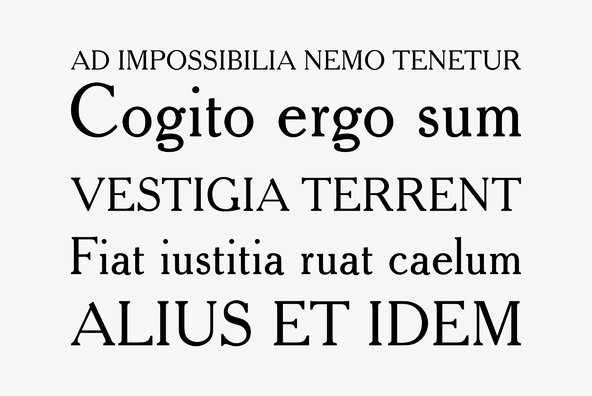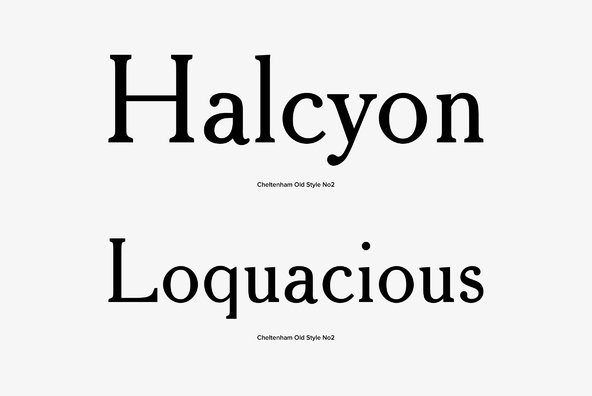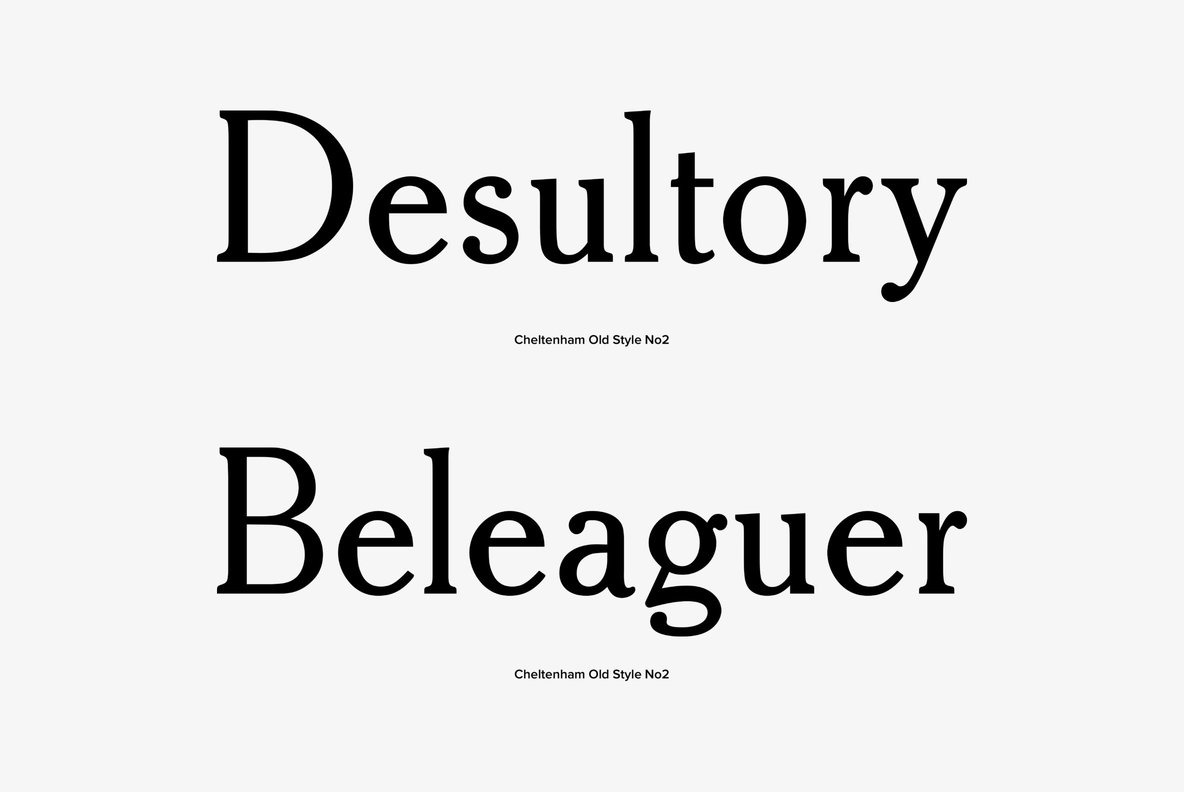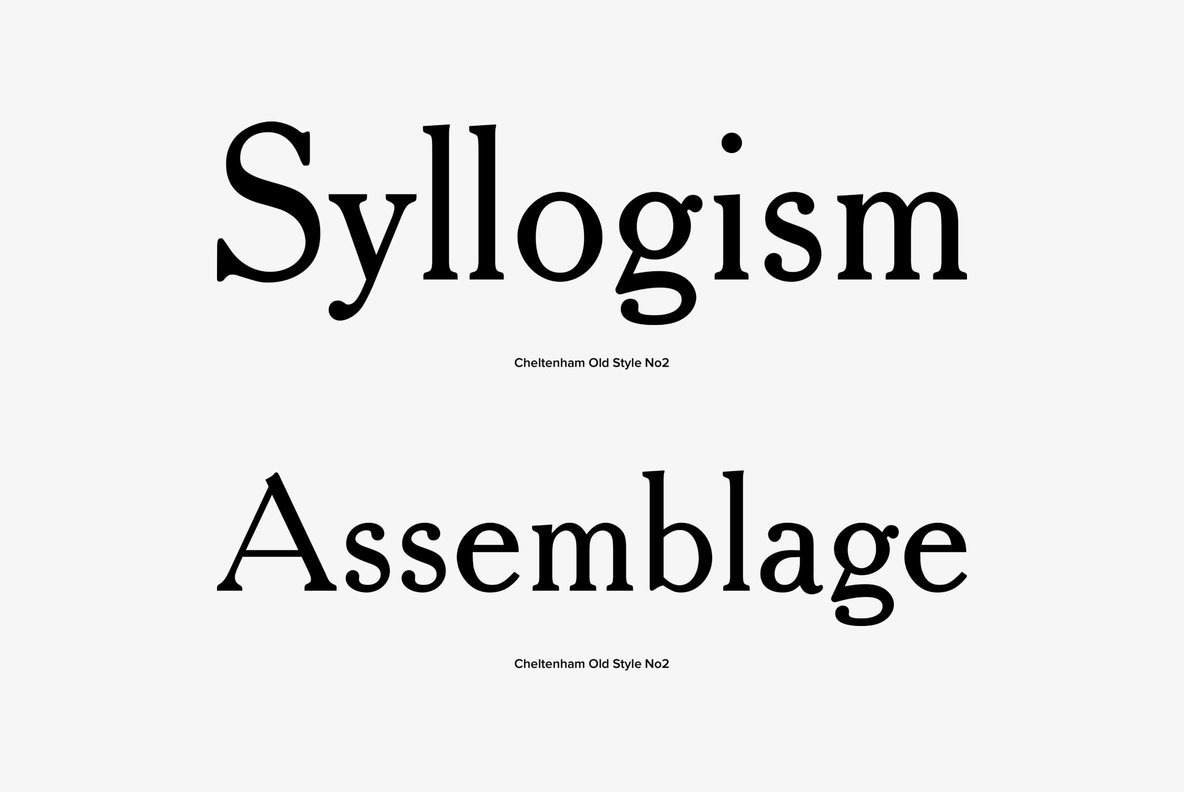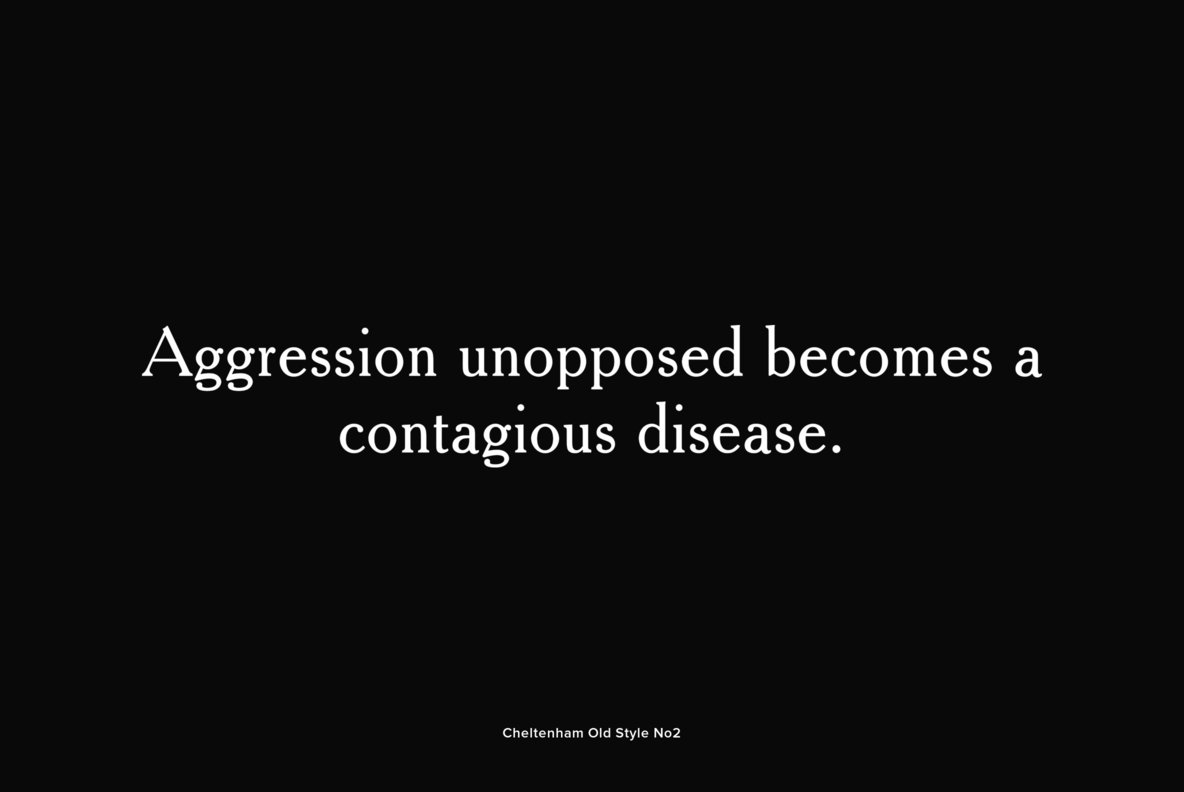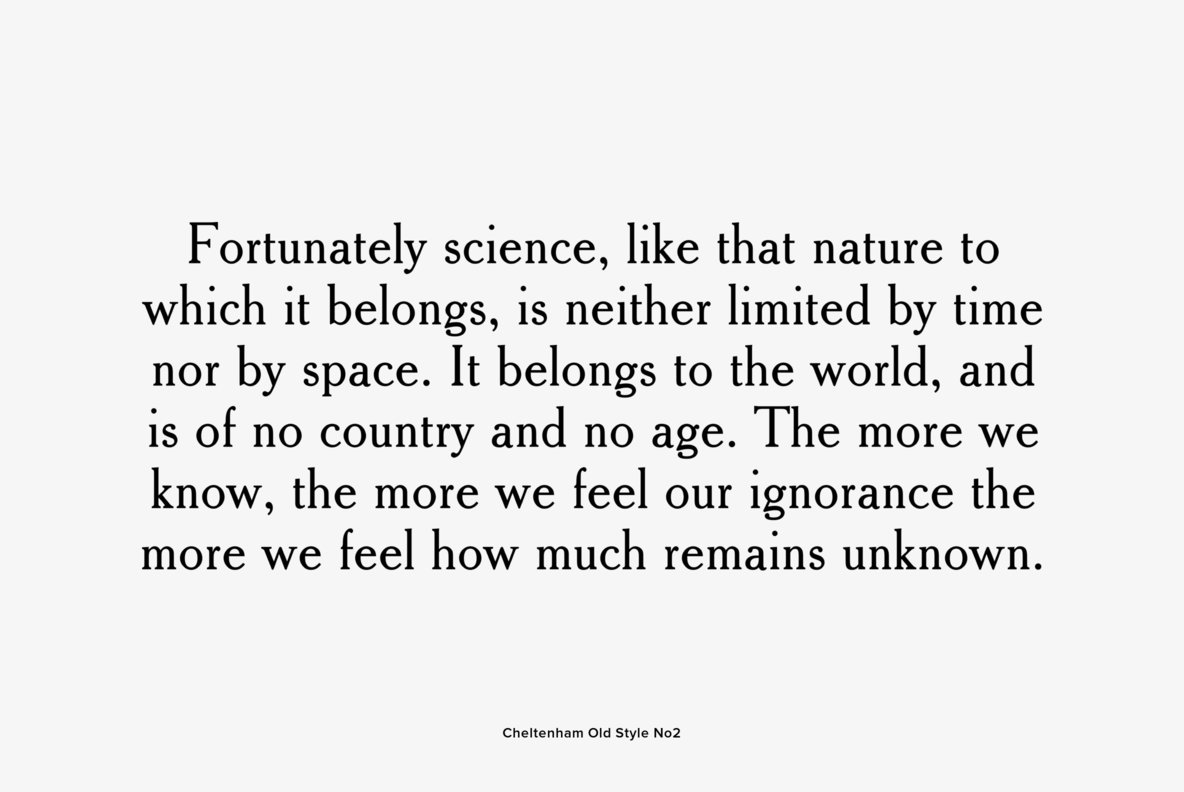
Cheltenham Old Style No 2
Cheltenham is an old style serif typeface, designed in 1896 by Bertram Grosvenor Goodhue and Ingalls Kimball for use by a New York publisher, the Cheltenham Press. Six years later Morris Fuller Benton at American Type Founders (ATF) developed it into a final design and then the series.
Cheltenham is not based on a single historical model, and shows influences of the Arts and Crafts Movement. Bold condensed and bold condensed italic variants are used for headlines by The New York Times.